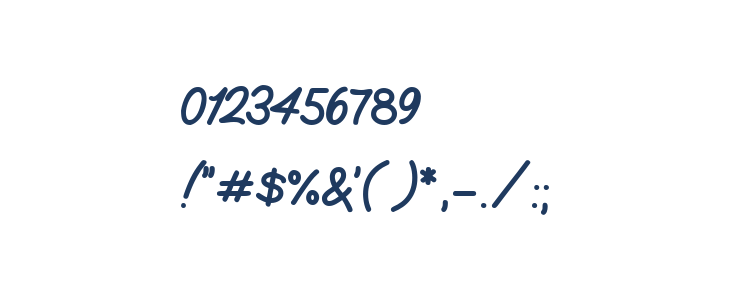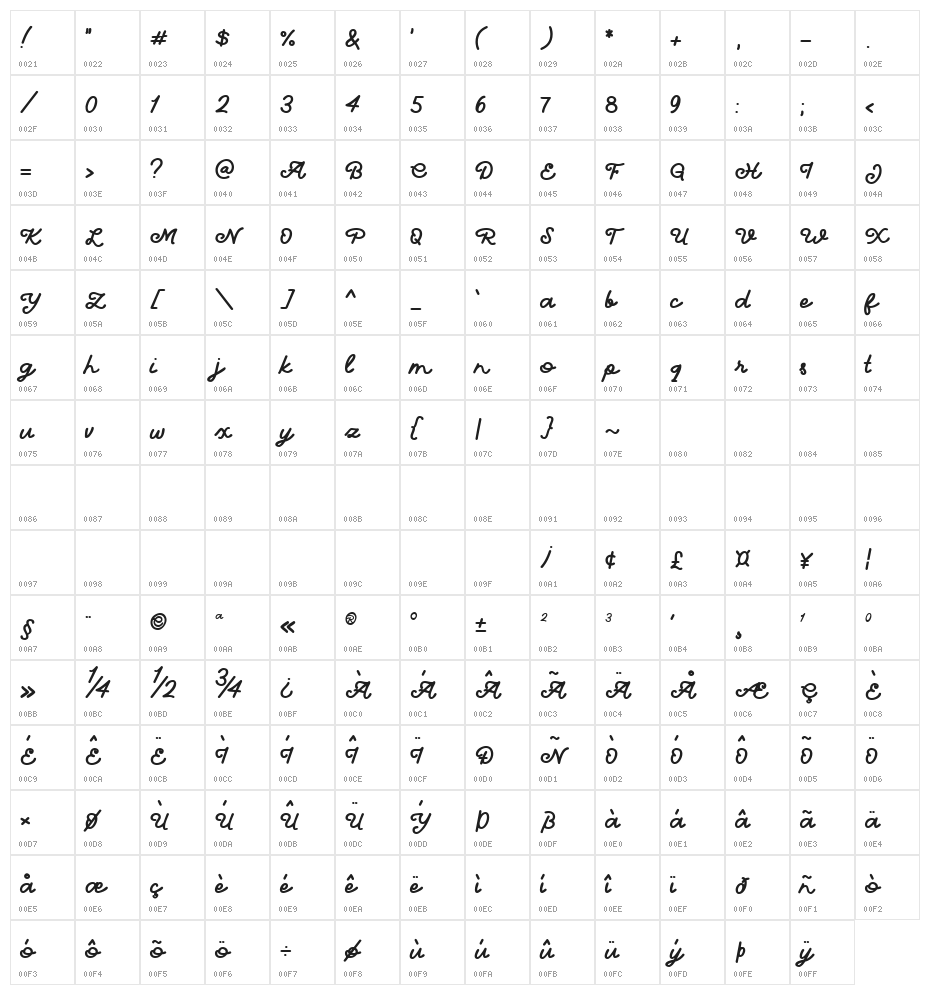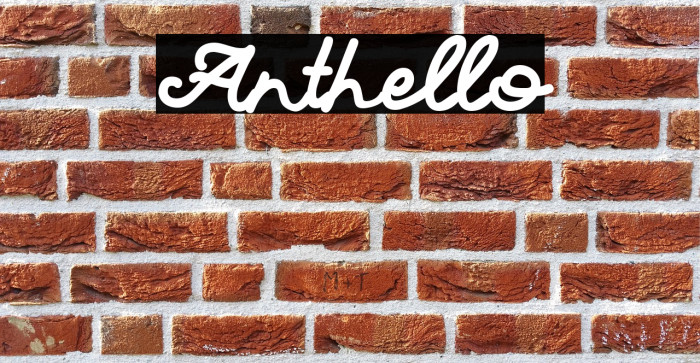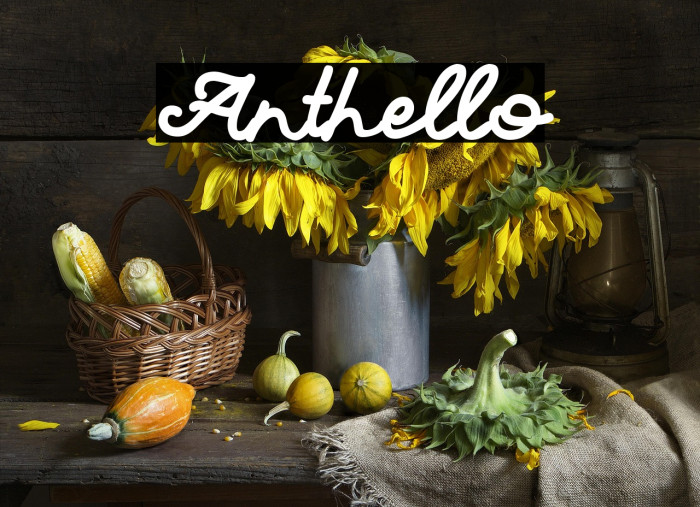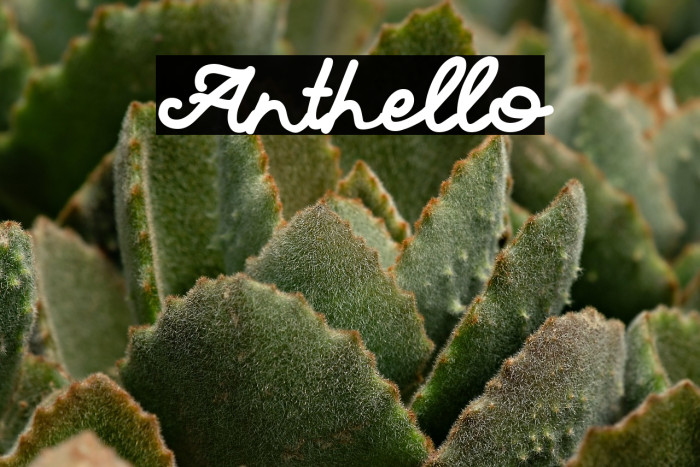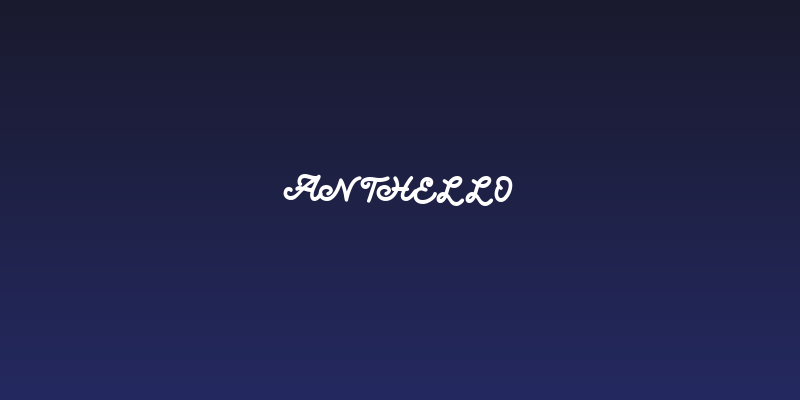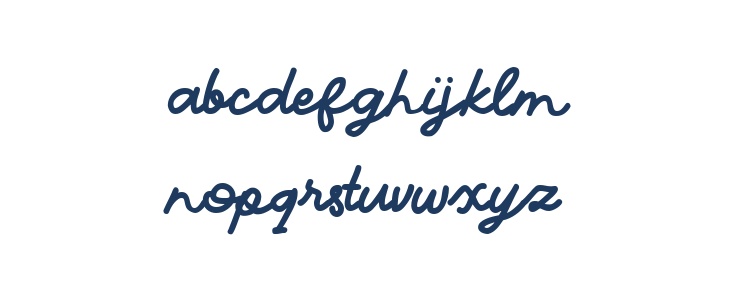
Anthello Font
Anthello Description
This font features a flowing, cursive style that mimics elegant handwriting. The characters are connected, creating a seamless and fluid appearance. The strokes are smooth and rounded, giving it a friendly and approachable feel. It maintains a consistent thickness throughout, which adds to its readability despite the script style. The uppercase letters are slightly larger and more ornate, while the lowercase letters maintain a uniform height, enhancing the overall balance. The numerals and special characters are designed to match the script's fluidity, ensuring a cohesive look across all text elements.
| Use Case | Headlines, Logos, Invitations |
| Proposed Projects | Ideal for wedding invitations, greeting cards, personal branding, and decorative headings. |